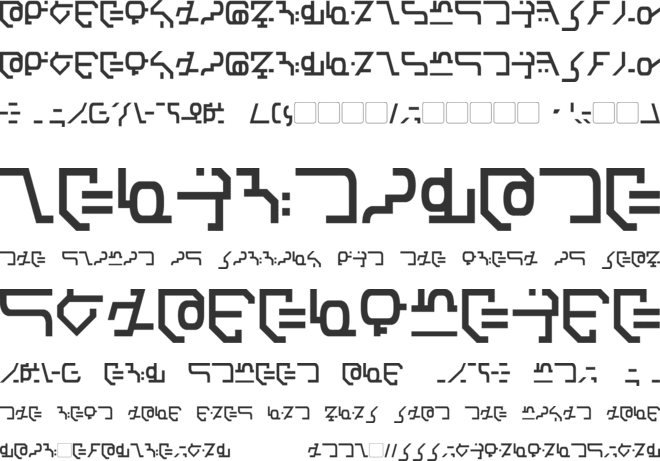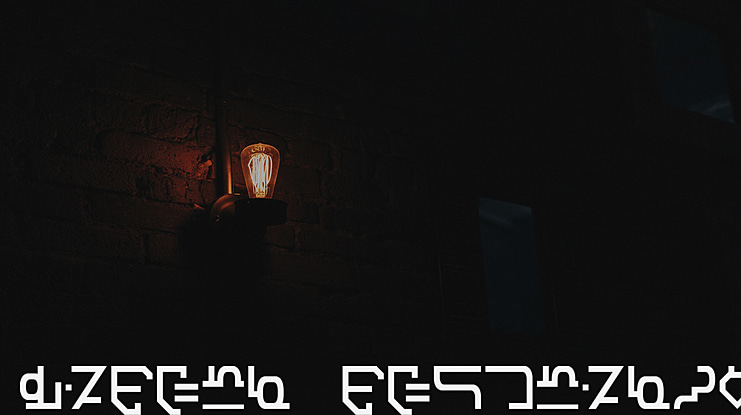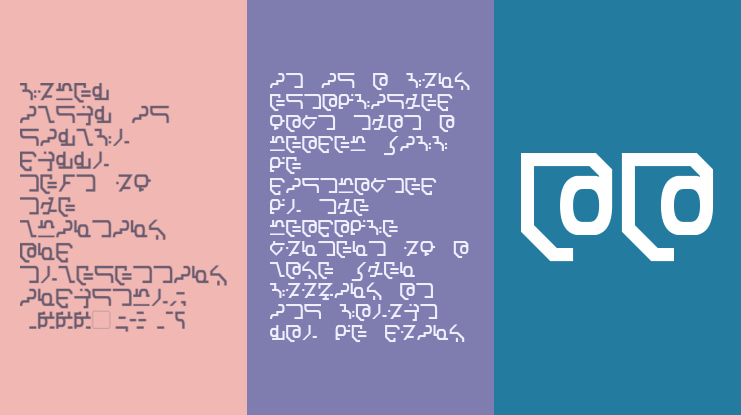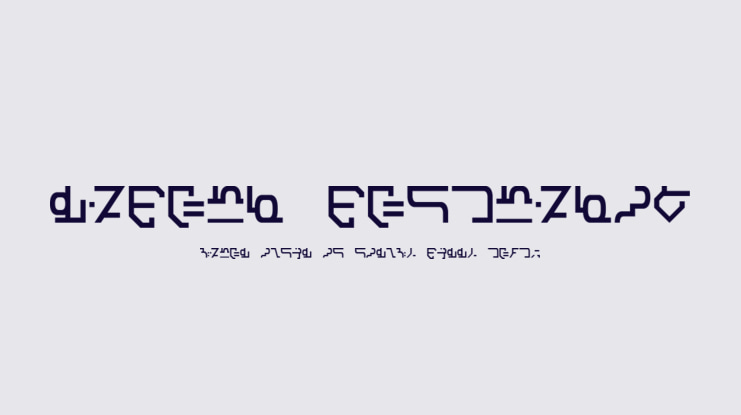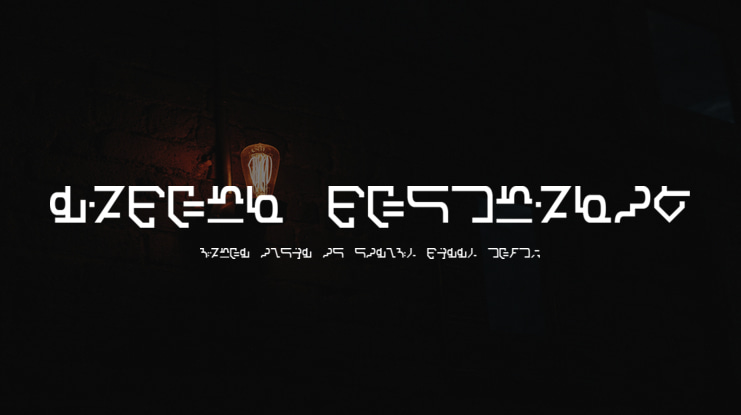
Modern Destronic Font Family
Modern Destronic is a ”tech manual” style, display-friendly version of the Decepticon Graffiti script found in the classic Marvel Comic’s Transformers series. Includes all canon characters. Includes regular and italic weights.